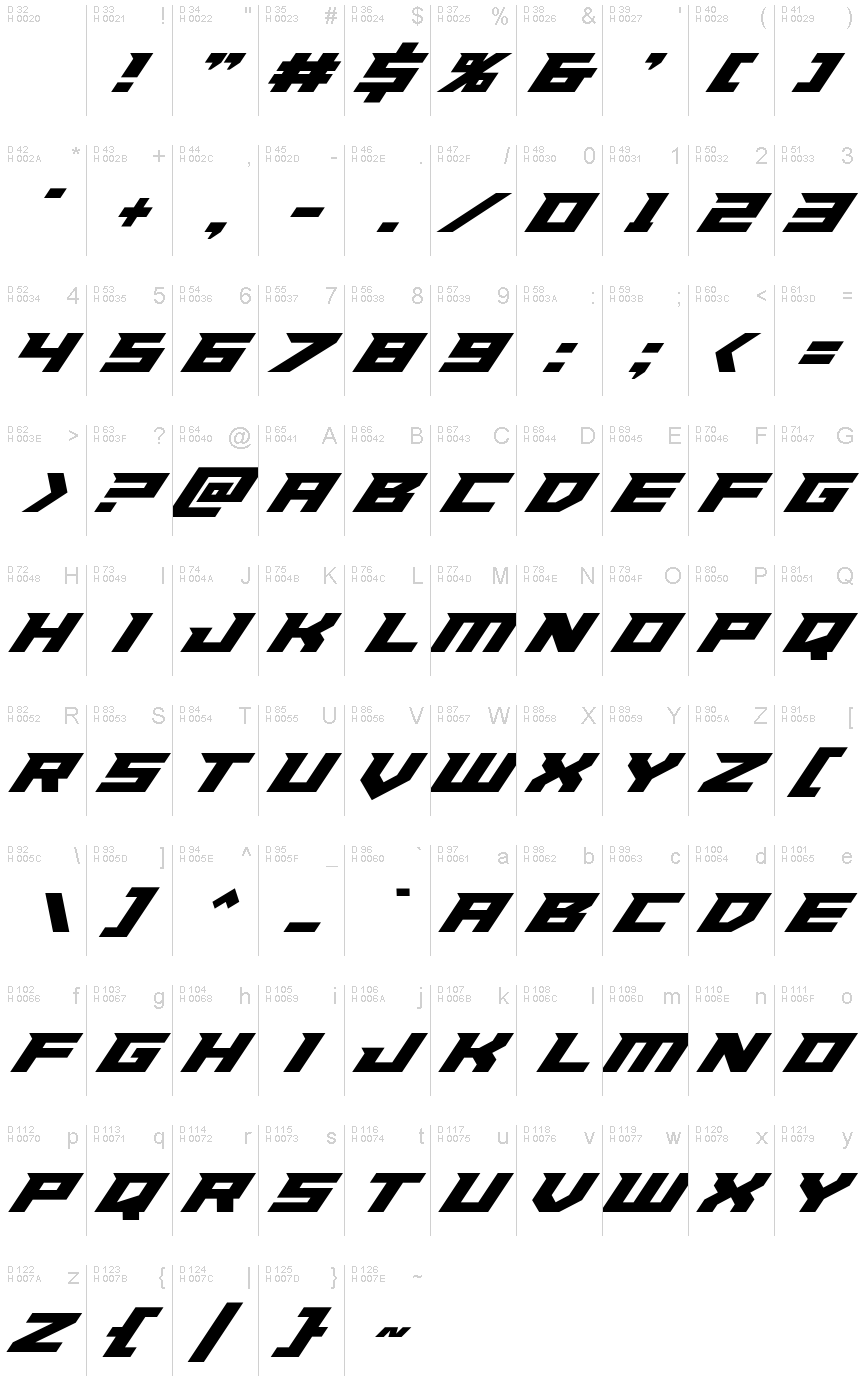
Paladins Super-Italic
Paladins Super-Italic is a bold, futuristic display font that commands attention. Its expanded, angular letterforms evoke a sense of strength and dynamism, making it an ideal choice for headings, logos, and branding materials that need to convey a powerful, technological aesthetic.
The font's distinct personality is further enhanced by its sharp, italicized silhouette, adding a sense of forward motion and energy to any design. Paladins Super-Italic's versatility lends itself to a wide range of applications, from sci-fi-inspired posters and book covers to sleek, modern website headers and app interfaces. Its striking visual impact ensures that it will leave a lasting impression on viewers, making it a valuable asset for designers seeking to create impactful, memorable designs.